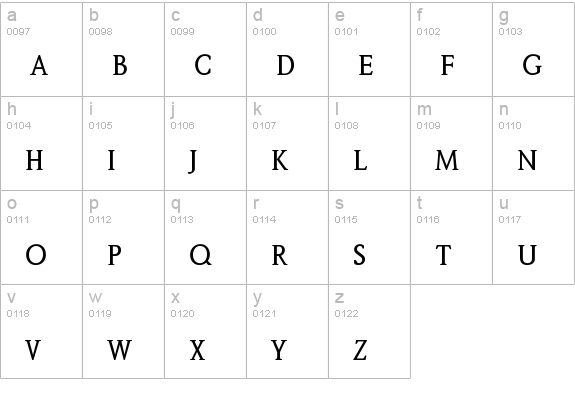
Weidemann* Expert Book Font Details
Weidemann* Expert Book is a comfortable, highly readable variant in the Weidemann* typeface family \xE2\x80\x94 well suited to long-form body text, articles, and editorial content.
Introducing Weidemann* Expert Book, a captivating typeface that effortlessly combines elegance and versatility. This font is the epitome of sophistication, with its refined strokes and balanced proportions, making it the perfect choice for a wide range of design projects. Weidemann* Expert Book offers a harmonious blend of classic and modern elements, resulting in a timeless aesthetic that will elevate any creative endeavor. Its clean lines and subtle curves create a sense of fluidity, capturing attention with its understated beauty. This font is meticulously crafted to ensure legibility and readability, even at smaller sizes. Whether used for body text, headlines, or captions, Weidemann* Expert Book maintains its clarity and distinct character, allowing your message to shine through. One of the standout features of Weidemann* Expert Book is its versatility. It effortlessly adapts to various design styles and contexts, making it a valuable asset for designers, creatives, and typographers alike. Whether you're working on a branding project, editorial layout, or web design, this font will seamlessly integrate into your vision. But what sets Weidemann* Expert Book apart is its accessibility. It is freely available to download at FontsMarket.com, allowing designers to effortlessly incorporate this exceptional typeface into their projects without any restrictions. This generosity ensures that Weidemann* Expert Book can be enjoyed and utilized by designers from all walks of life. In conclusion, Weidemann* Expert Book is a stunning font that combines elegance, versatility, and accessibility. Its timeless appeal, legibility, and availability make it a must-have for any design toolkit. Download Weidemann* Expert Book today from FontsMarket.com and let your creativity soar to new heights.